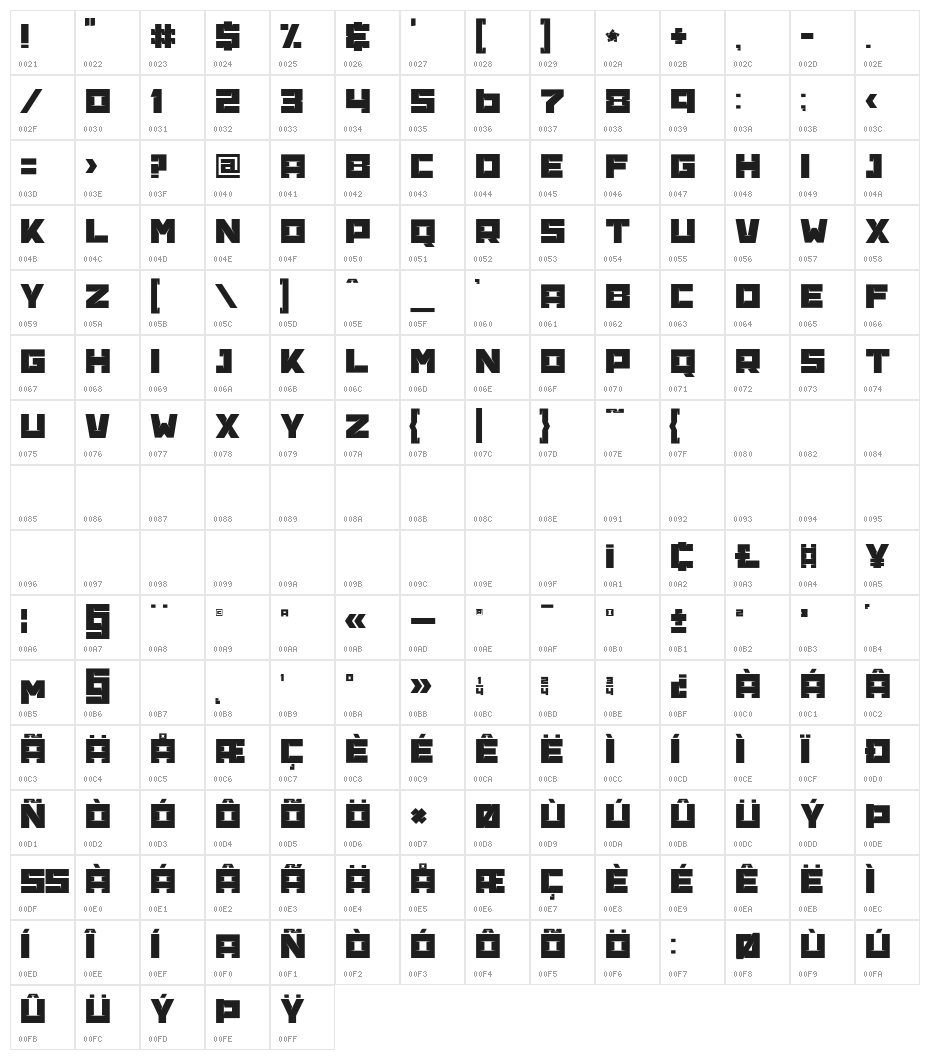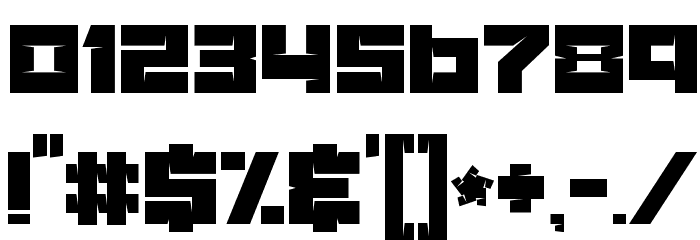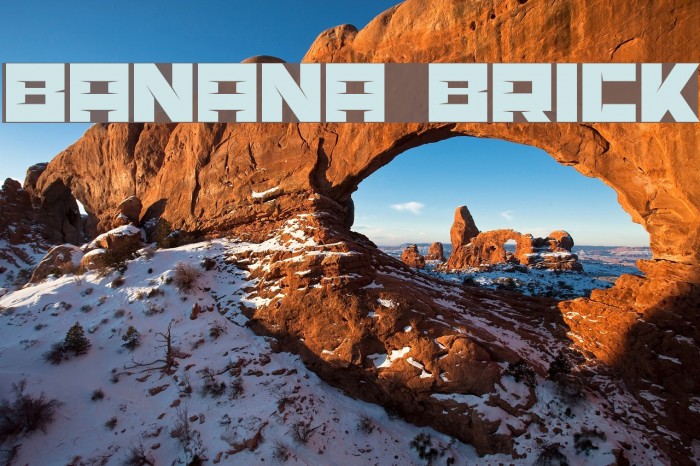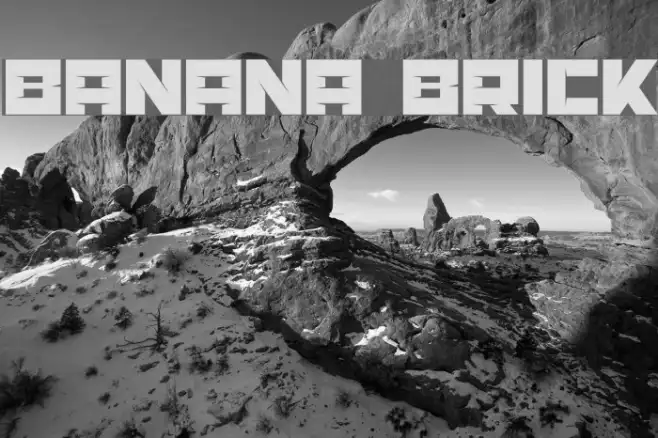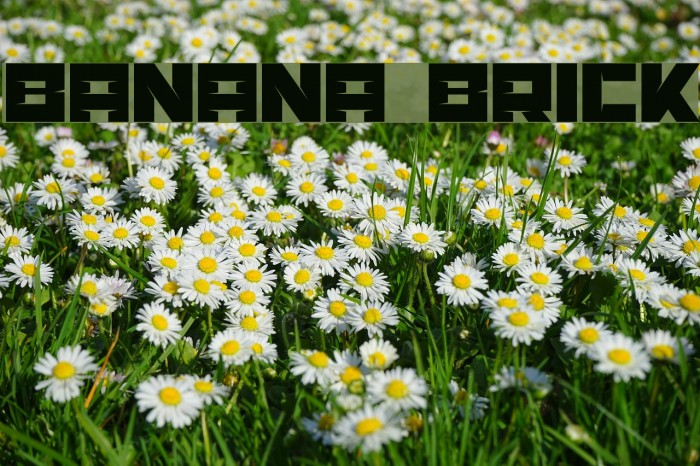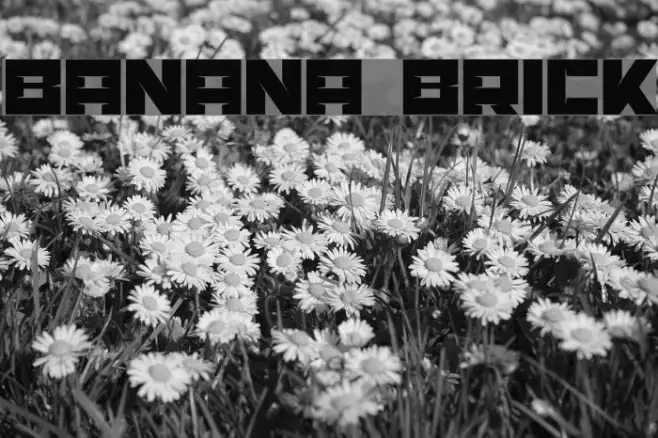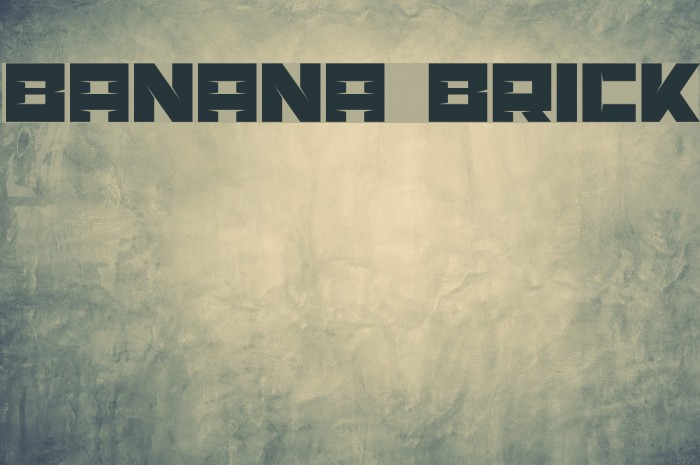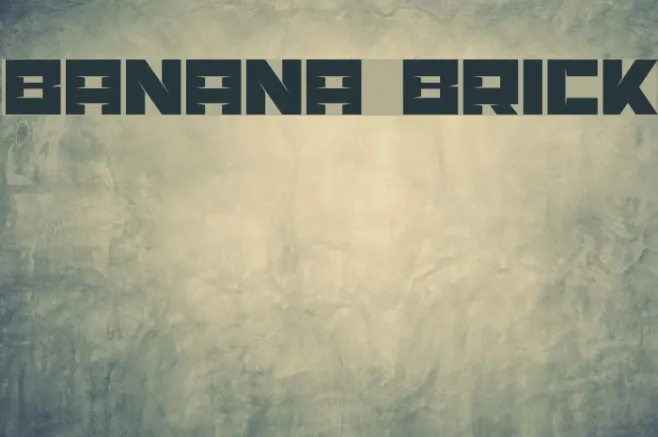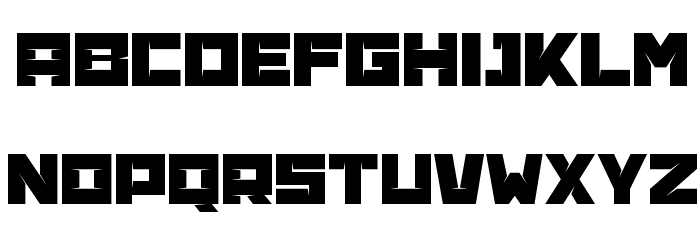
Banana Brick Font
Banana Brick Description
This font features a bold and geometric design with a distinct blocky appearance. Each character is crafted with sharp angles and thick strokes, creating a strong visual impact. The uppercase letters are uniform in height, while the numbers and special characters maintain the same bold style. The font's unique style is reminiscent of industrial or futuristic themes, making it suitable for projects that require a modern and edgy look. Its high contrast and solid structure ensure readability while maintaining a striking aesthetic.
| Proposed Projects | Ideal for branding, posters, video game graphics, and any design requiring a modern, bold statement. |